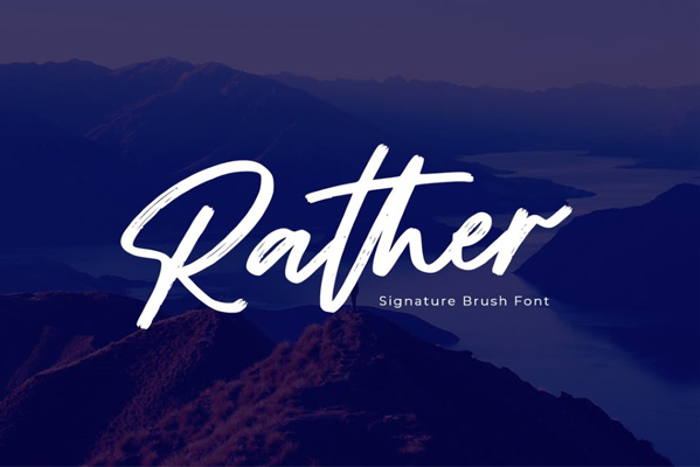
Rather Font
Rather is an exquisite handwritten font, masterfully designed to become a true favorite. It maintains its classy calligraphic influences while feeling contemporary and fresh. Fall in love with it and bring your projects to the highest levels.
Features include:
• Ligatures
• Stylistic Sets
• Multilingual Supports
• Numerals and Punctuations